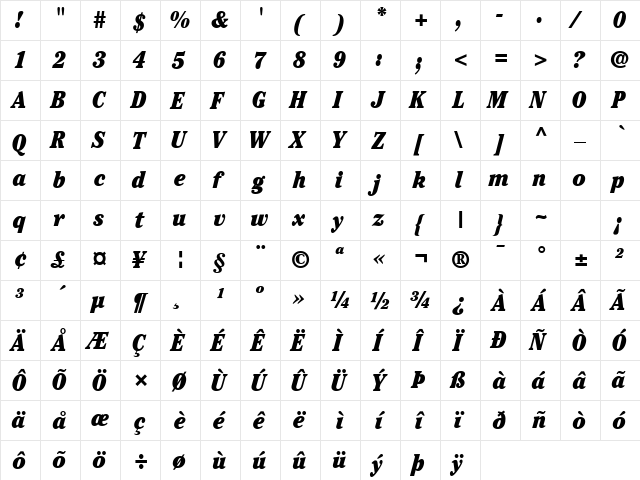
Cheltenham Black Condensed SSi Black Condensed Italic Font Preview
Design Context for Cheltenham Black Condensed SSi Typeface
Cheltenham Black Condensed SSi is a composed and adaptable typeface that performs quietly and consistently across a wide range of design contexts. Its italic angle brings a sense of urgency and motion to the letterforms. The condensed width makes it efficient for tight spaces without sacrificing legibility.
Pro Tip: Try Cheltenham Black Condensed SSi for annotation and caption copy alongside an upright companion — the contrast in angle creates a dynamic but ordered typographic system.